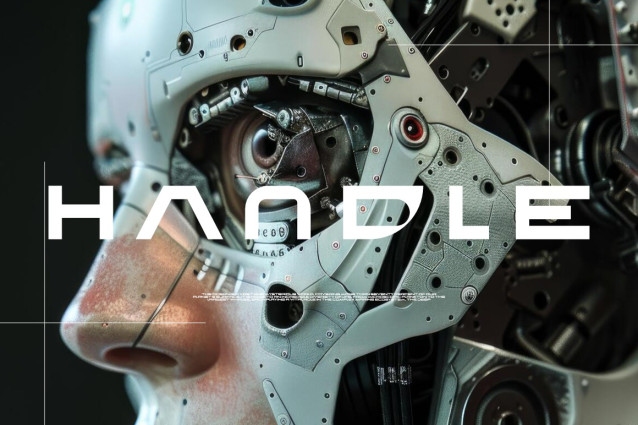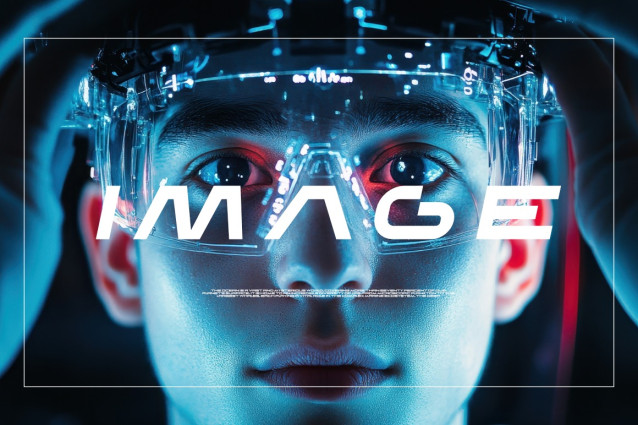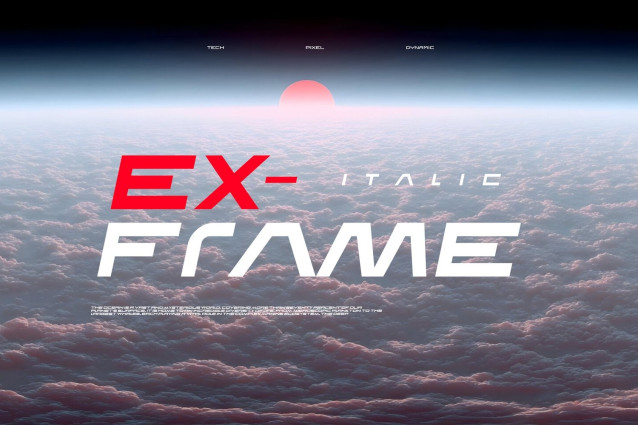
Exframe Font
Exframe Font is a modern display typeface inspired by advanced technology, robotics, and industrial design. With its clean geometric structure, sharp edges, and balanced proportions, Exframe delivers a bold and futuristic aesthetic that instantly captures attention.
Designed for innovation-driven projects, this font blends minimalism with mechanical precision, making it ideal for branding, tech interfaces, sci-fi visuals, gaming titles, and cutting-edge marketing materials. Each letterform is crafted to evoke a sense of engineered perfection—strong, sleek, and forward-thinking.
Whether you’re building a high-tech identity or pushing creative boundaries, Exframe provides a distinctive voice that feels both contemporary and visionary.